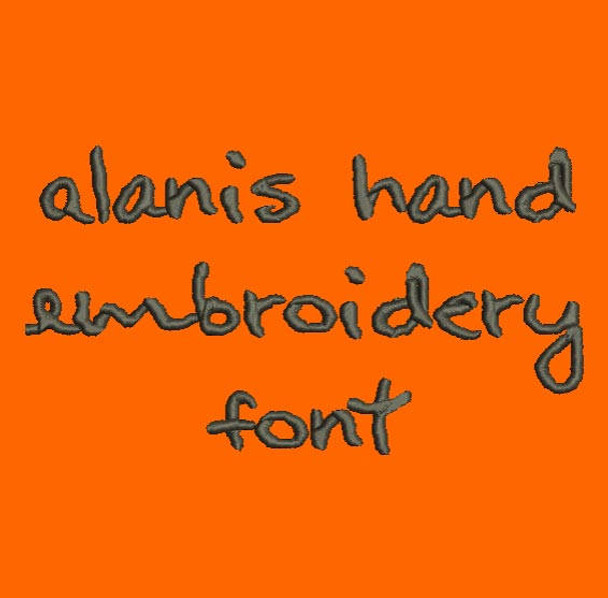
Artist Inspired Handwriting - Alanis Hand Machine Embroidery Font Now Includes BX Format!
Title: Alanis Hand Machine Embroidery Font
This Alanis Hand font is perfect for personalizing clothes, bags, towels and linens!